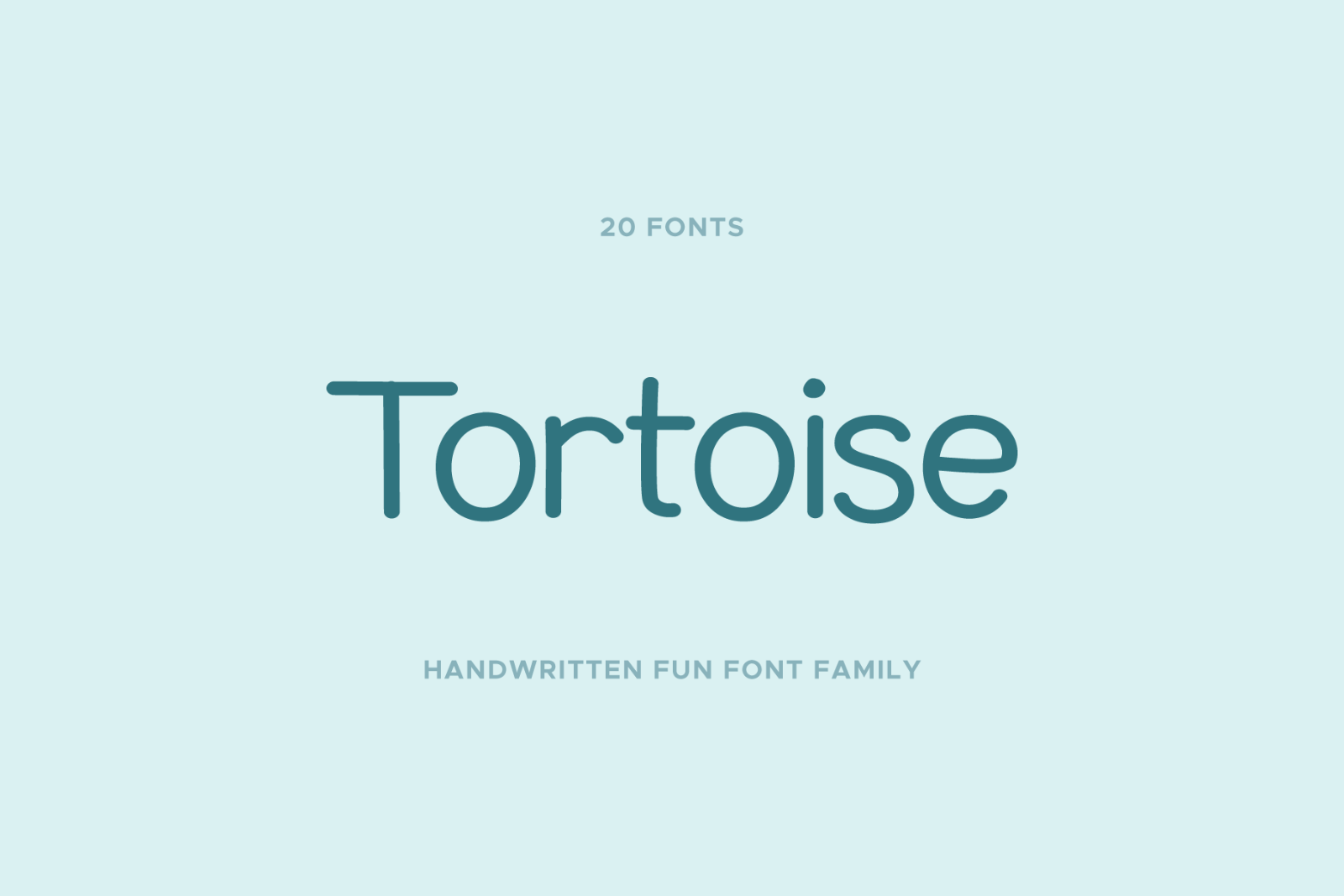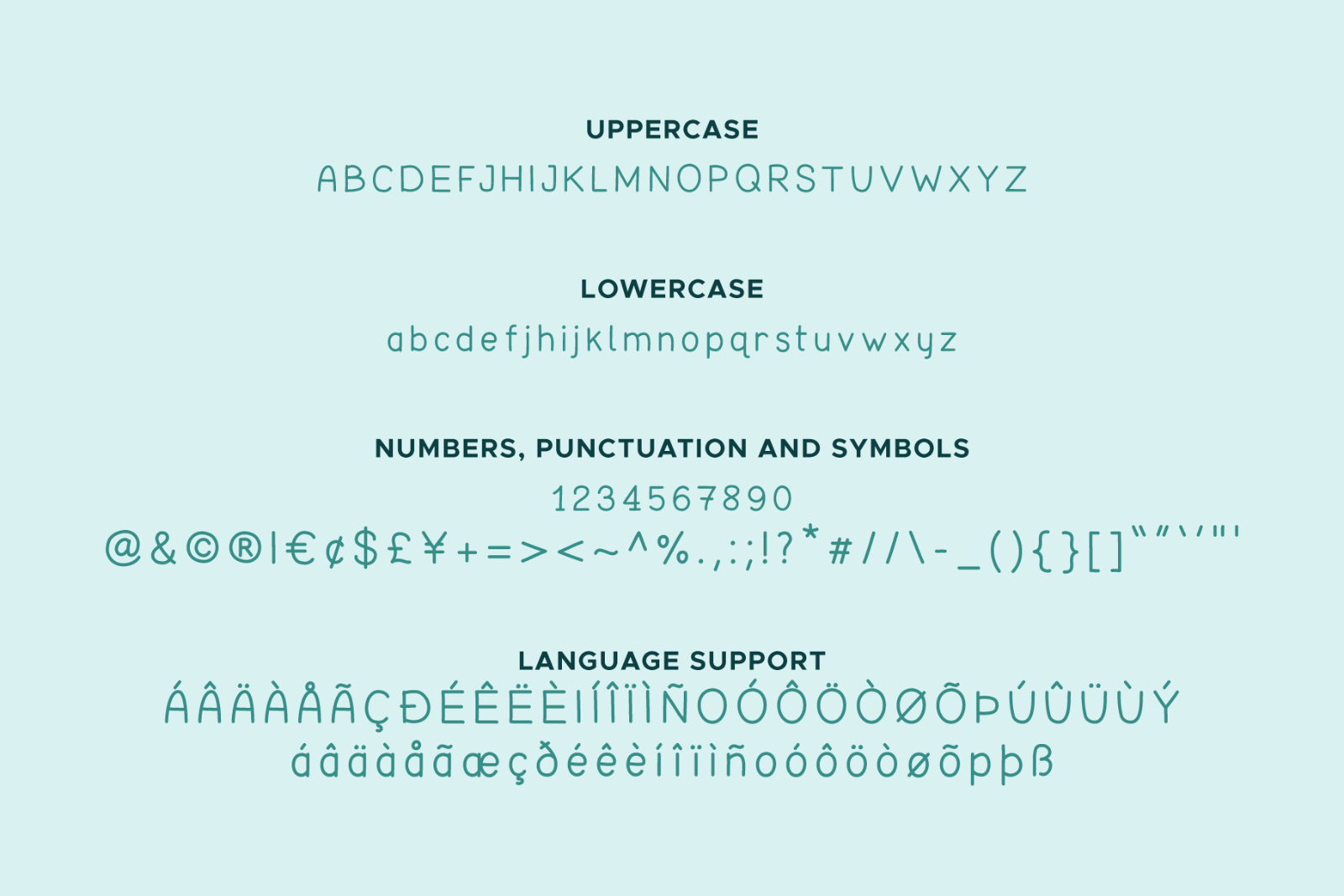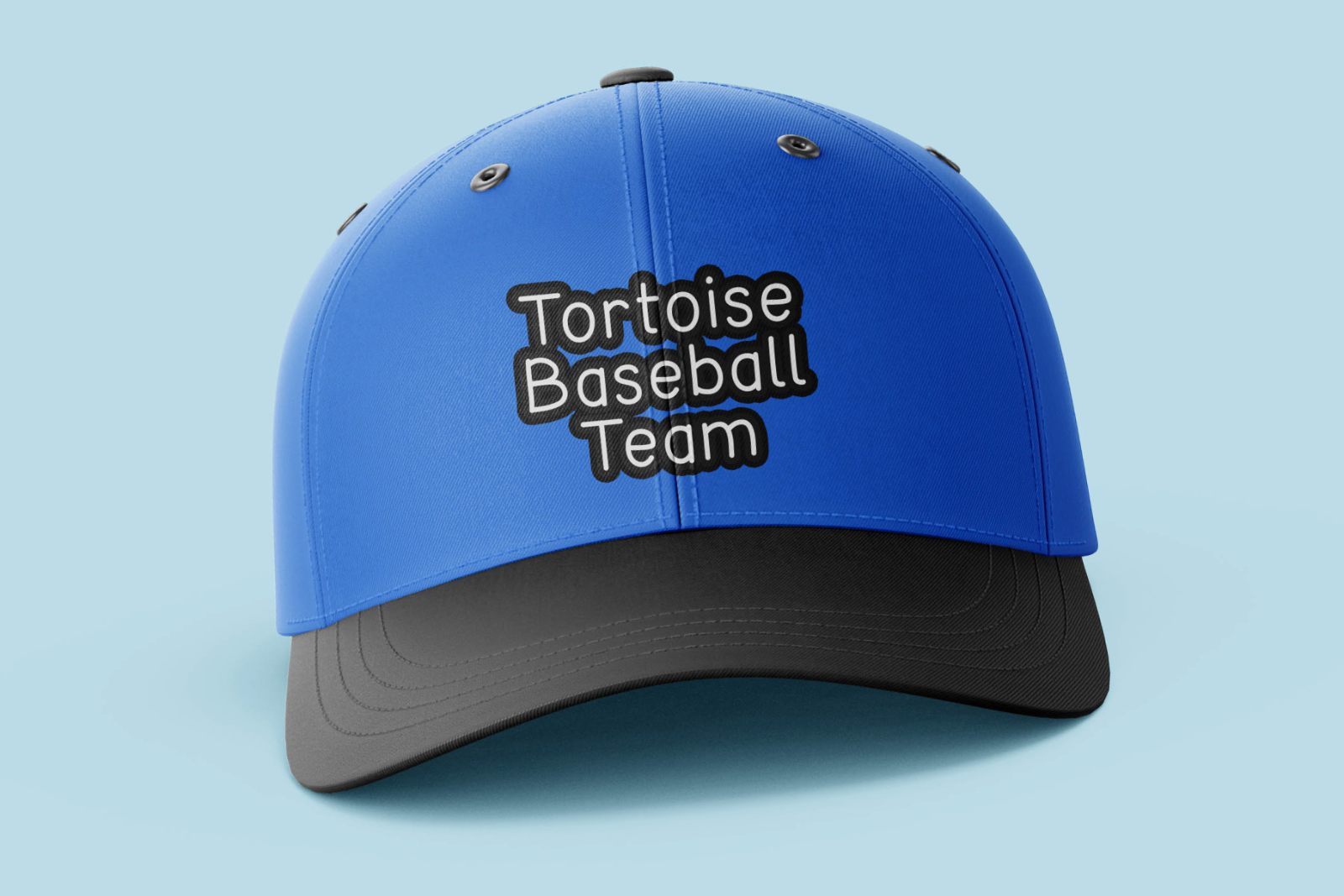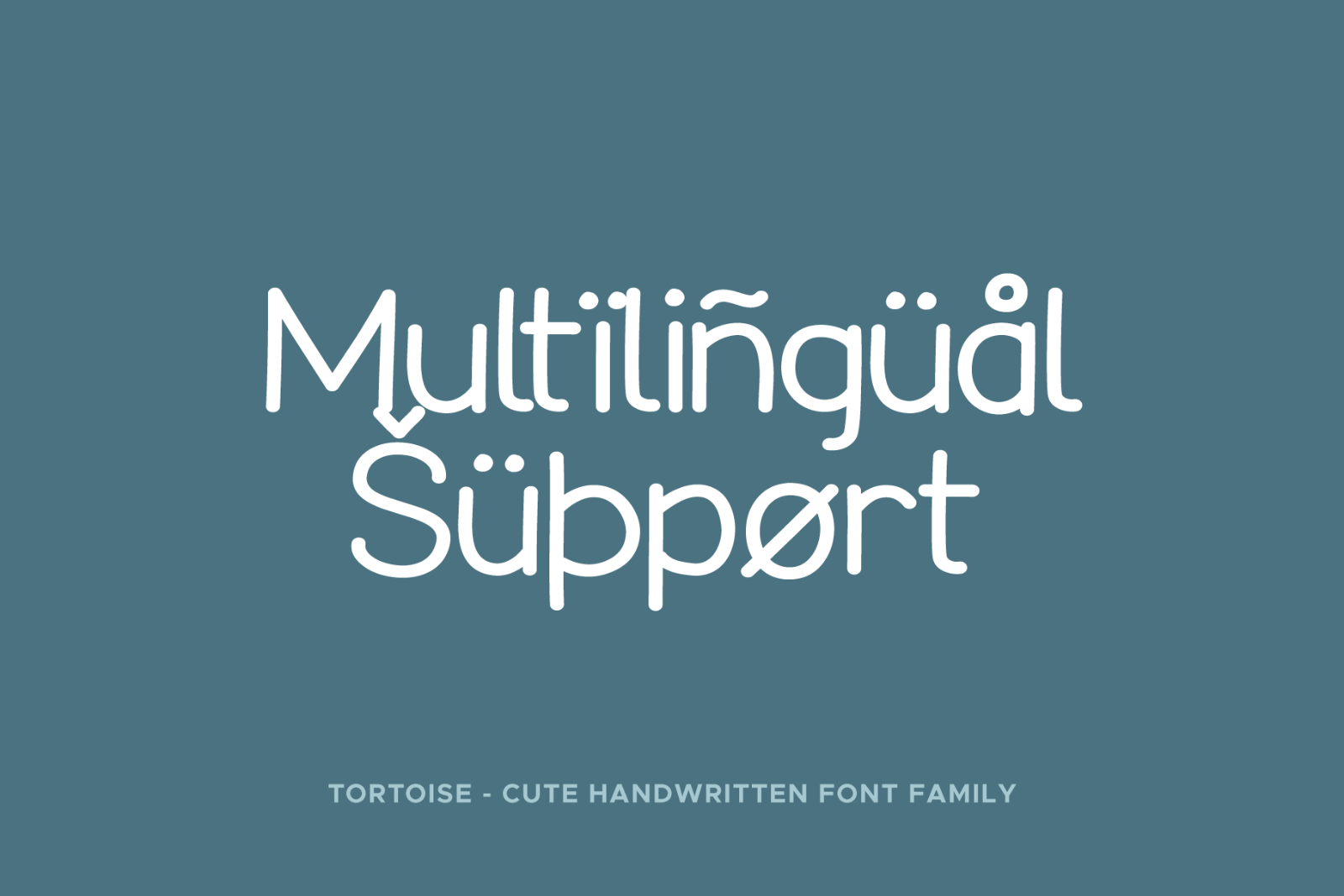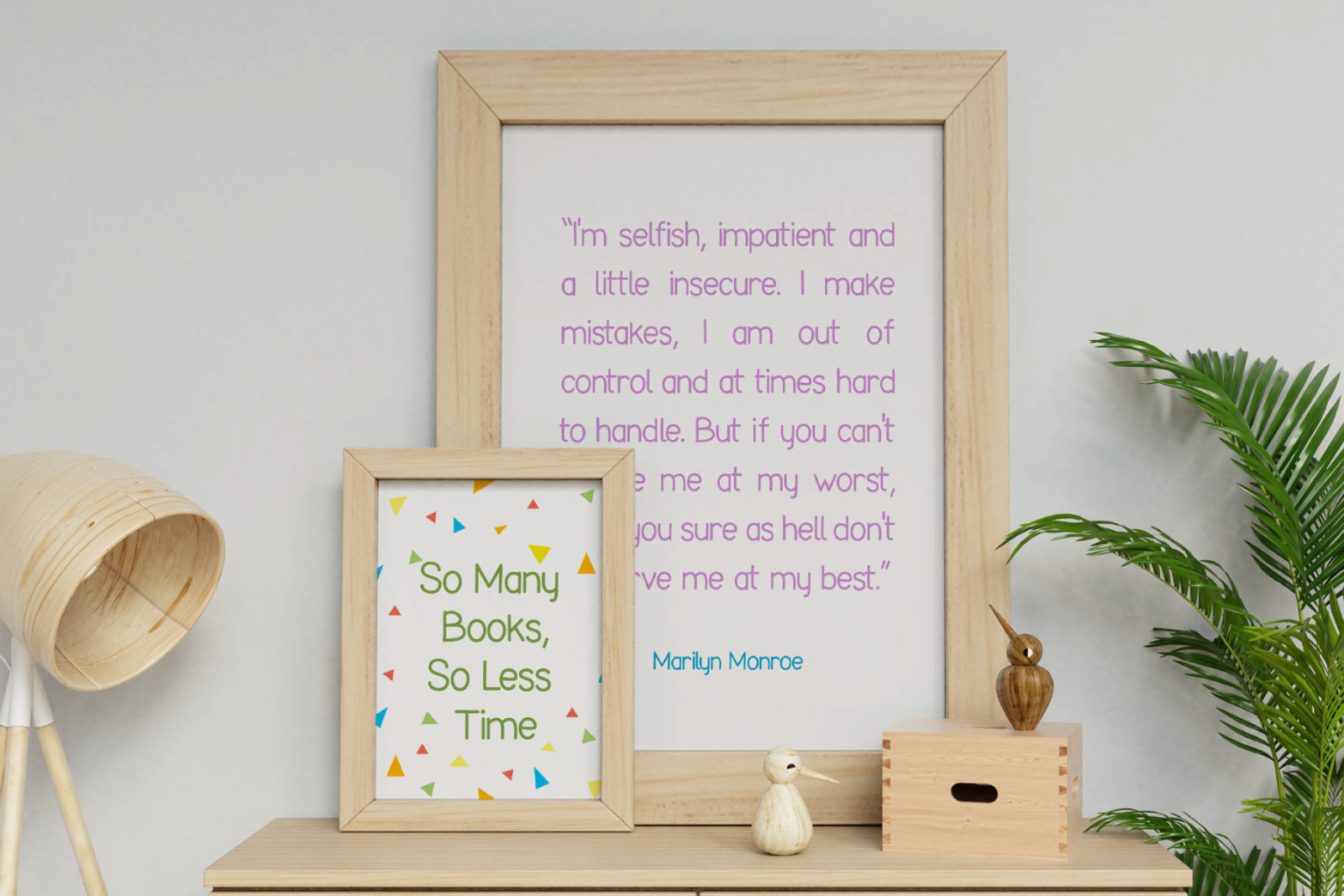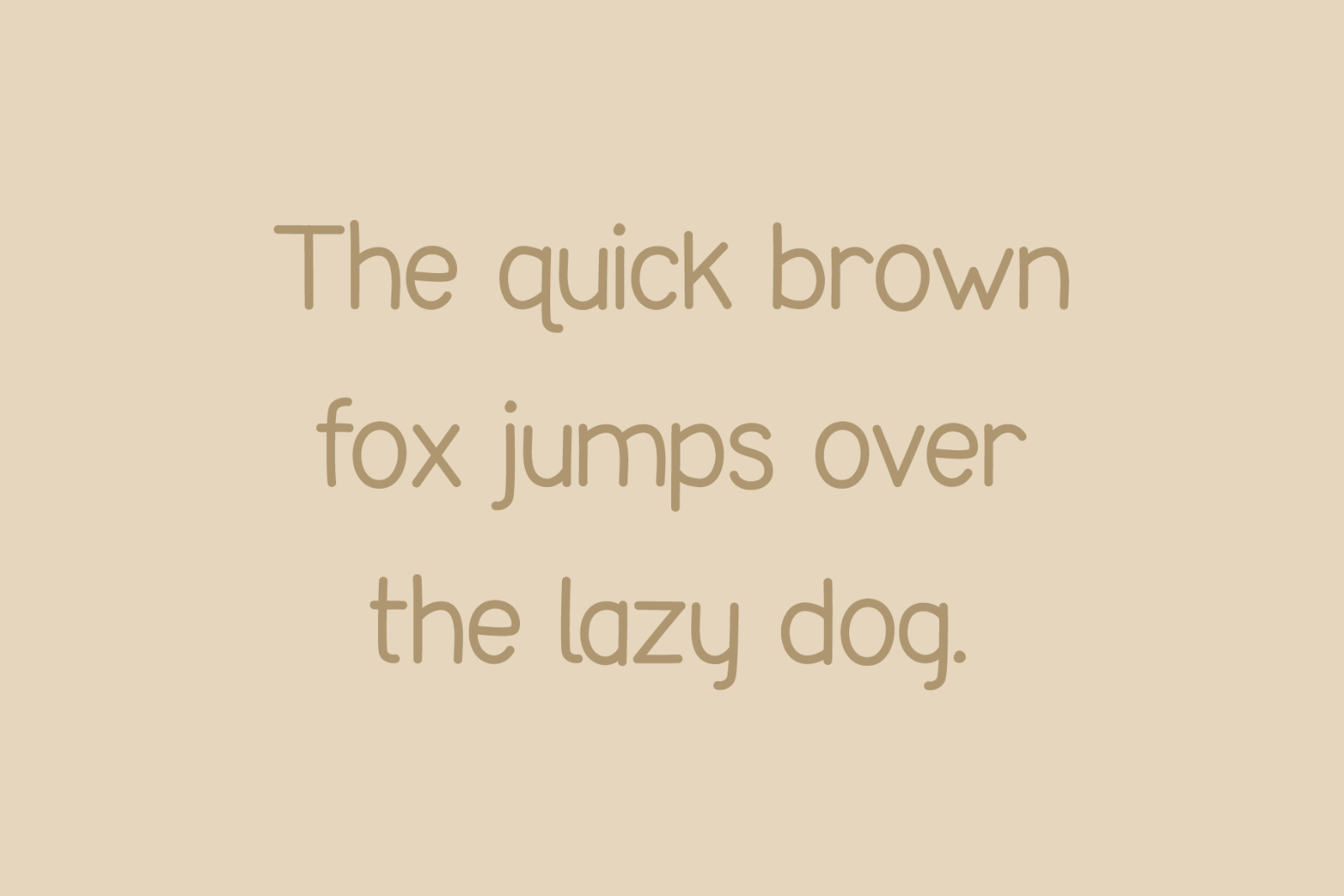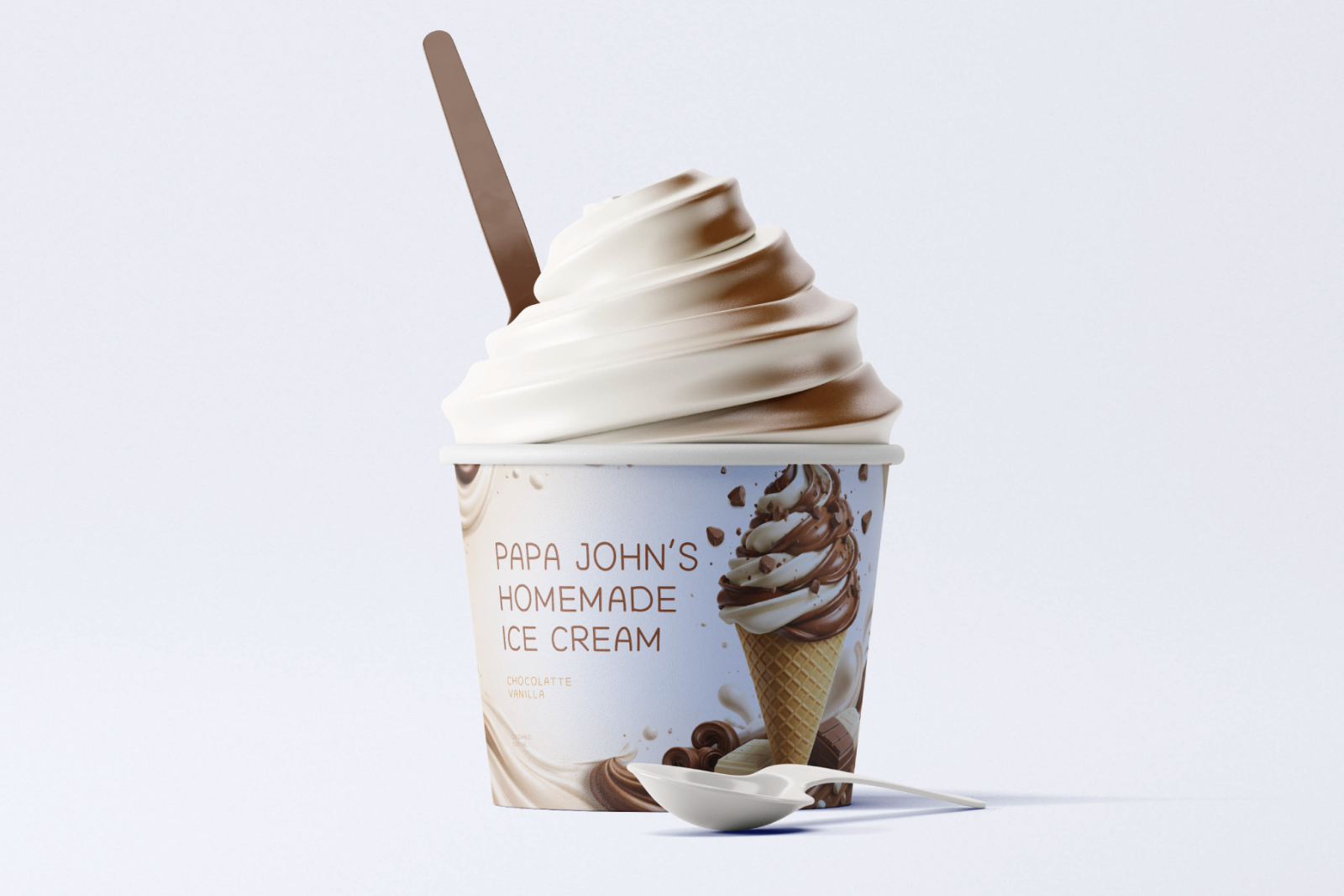
Tortoise is a playful handwritten pencil-style font with brush and textured variants, perfect for kids designs, branding, posters, and crafts.
The family includes a wide range of expressive styles — from clean Regular and Italic to textured variations like Brush, Ink, Rough, Scratch, Grit, Rust, Worn, Cut, and Eroded — each with matching italics. These options allow designers to move from soft pencil lines to distressed, tactile finishes while maintaining a consistent handwritten identity.
Supporting an extensive range of Latin-based languages, Tortoise is versatile for international projects across branding, packaging, children’s books, educational materials, posters, social media graphics, merchandise, and creative stationery.
Whether you’re designing something playful, rustic, crafty, or heartfelt, Tortoise delivers a natural handwritten feel with subtle texture and genuine character.
Includes multilingual support: Afrikaans, Albanian, Asu, Basque, Bemba, Bena, Cebuano, Chiga, Cornish, Corsican, Danish, English, Estonian, Faroese, Filipino, Finnish, French, Friulian, Galician, German, Gusii, Icelandic, Ido, Indonesian, Interlingua, Interlingue, Irish, Italian, Javanese, Jju, Kabuverdianu, Kalaallisut, Kalenjin, Kinyarwanda, Ligurian, Lojban, Lombard, Low German, Luo, Luxembourgish, Luyia, Machame, Makhuwa, Makhuwa-Meetto, Makonde, Malagasy, Malay, Manx, Morisyen, North Ndebele, Northern Sotho, Norwegian Bokmål, Norwegian Nynorsk, Nyankole, Occitan, Oromo, Portuguese, Rejang, Romansh, Rombo, Rundi, Rwa, Samburu, Sango, Sangu, Sardinian, Scottish Gaelic, Sena, Shambala, Shona, Soga, Somali, South Ndebele, Southern Sotho, Spanish, Sundanese, Swahili, Swati, Swedish, Swiss German, Taita, Taroko, Teso, Tsonga, Tswana, Vunjo, Walloon, Wolastoqey, Xhosa, Zhuang, Zulu